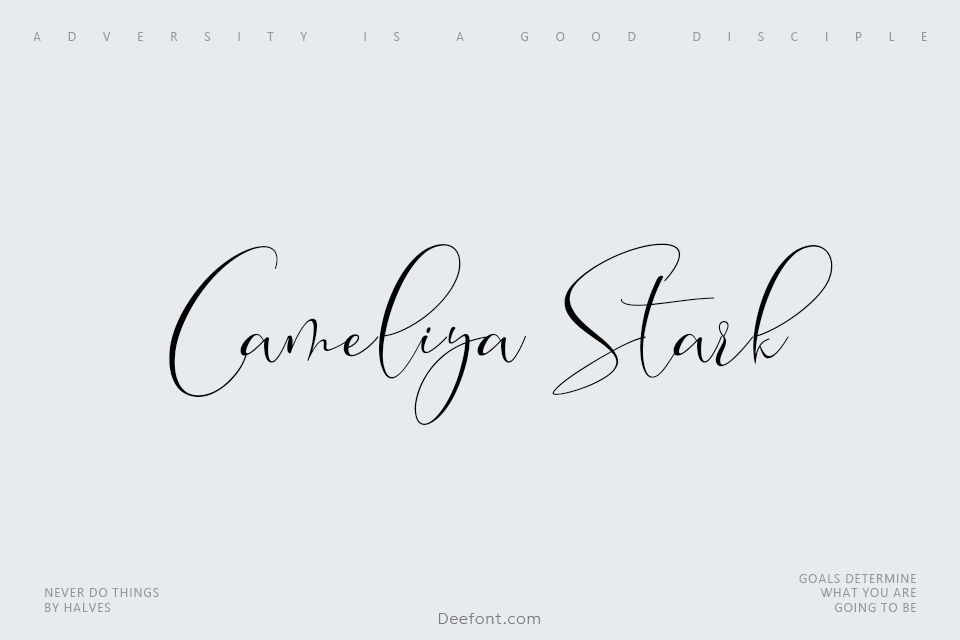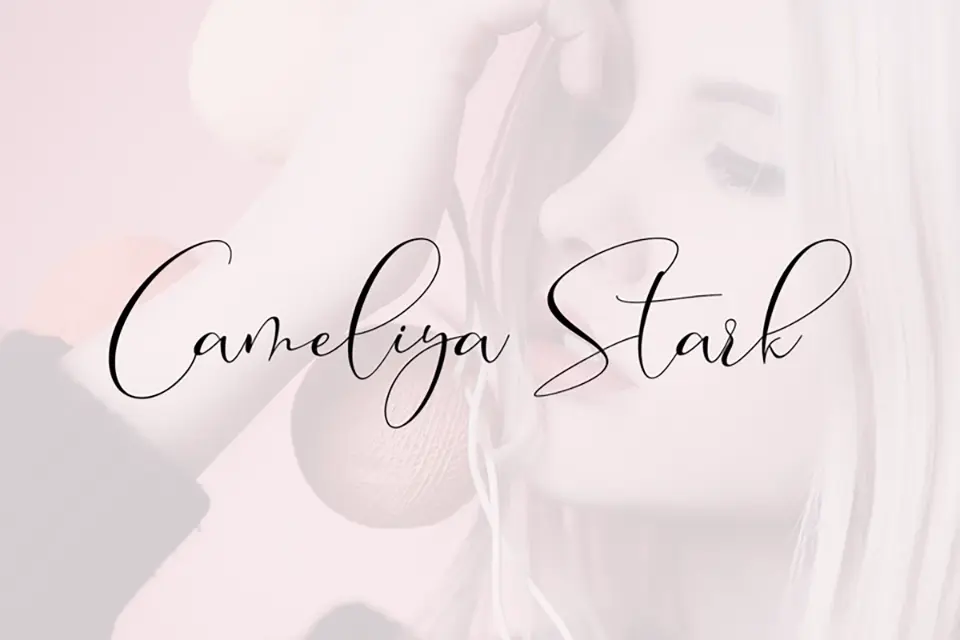
Cameliya Stark Font
Cameliya Stark is an elegant script and calligraphy font that blends classic refinement with modern sophistication. Designed for personal use, this versatile typeface features delicate strokes, intricate details, and beautiful flourishes perfect for wedding invitations, branding materials, and creative typography projects. With its smooth, legible letterforms and stylish curves, Cameliya Stark adds a touch of elegance and personality to any design, elevating your work to professional heights.